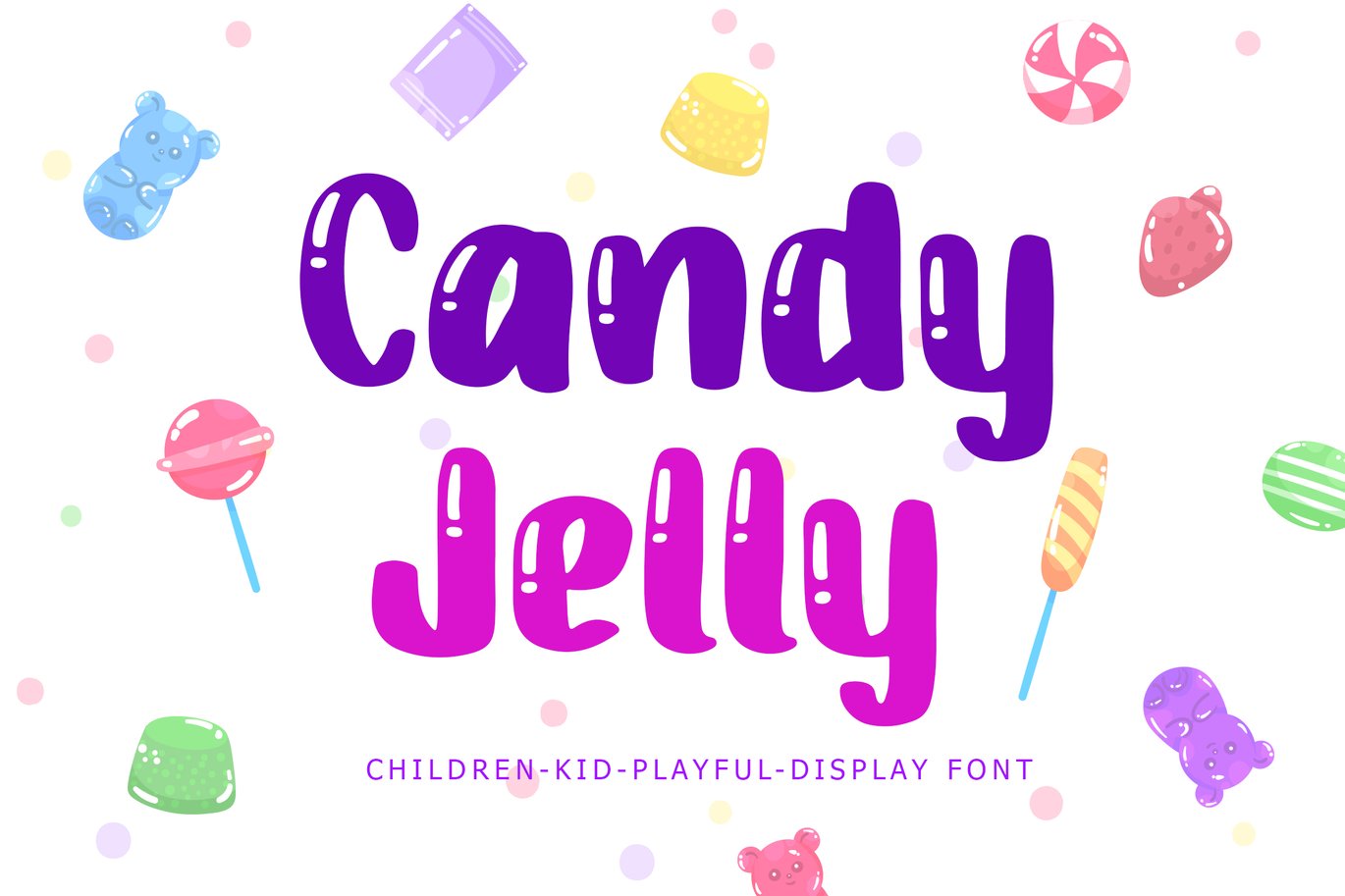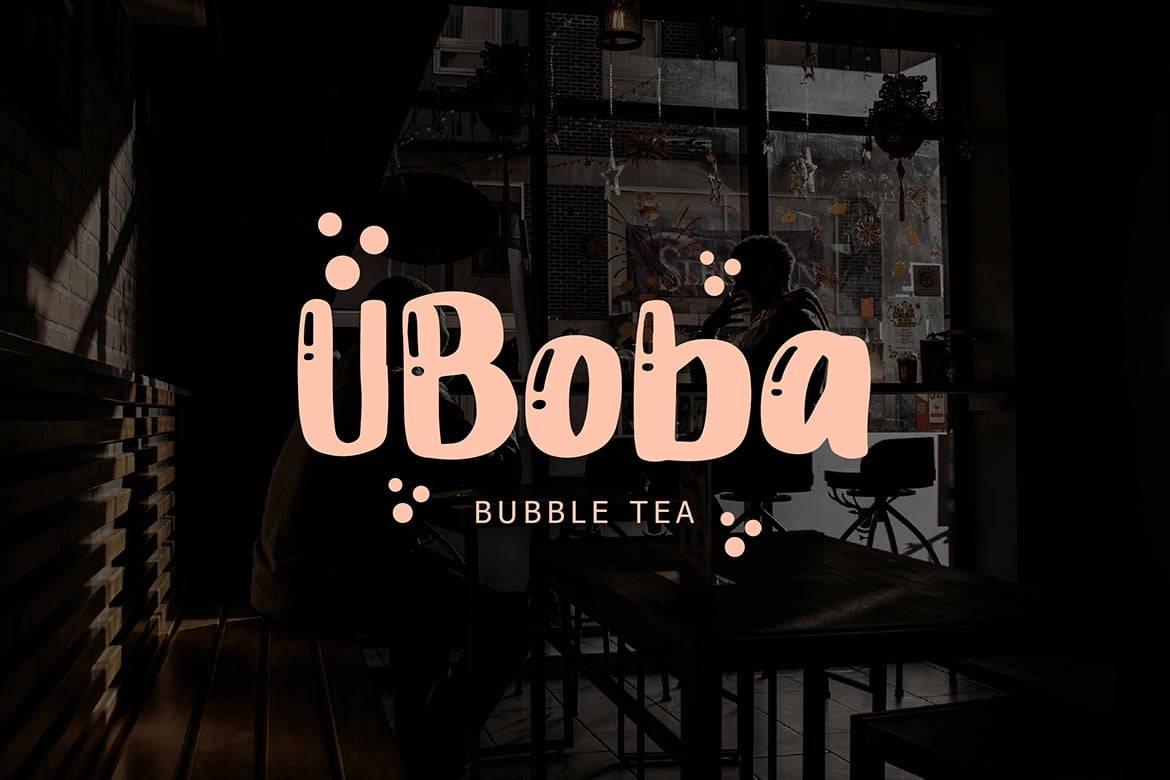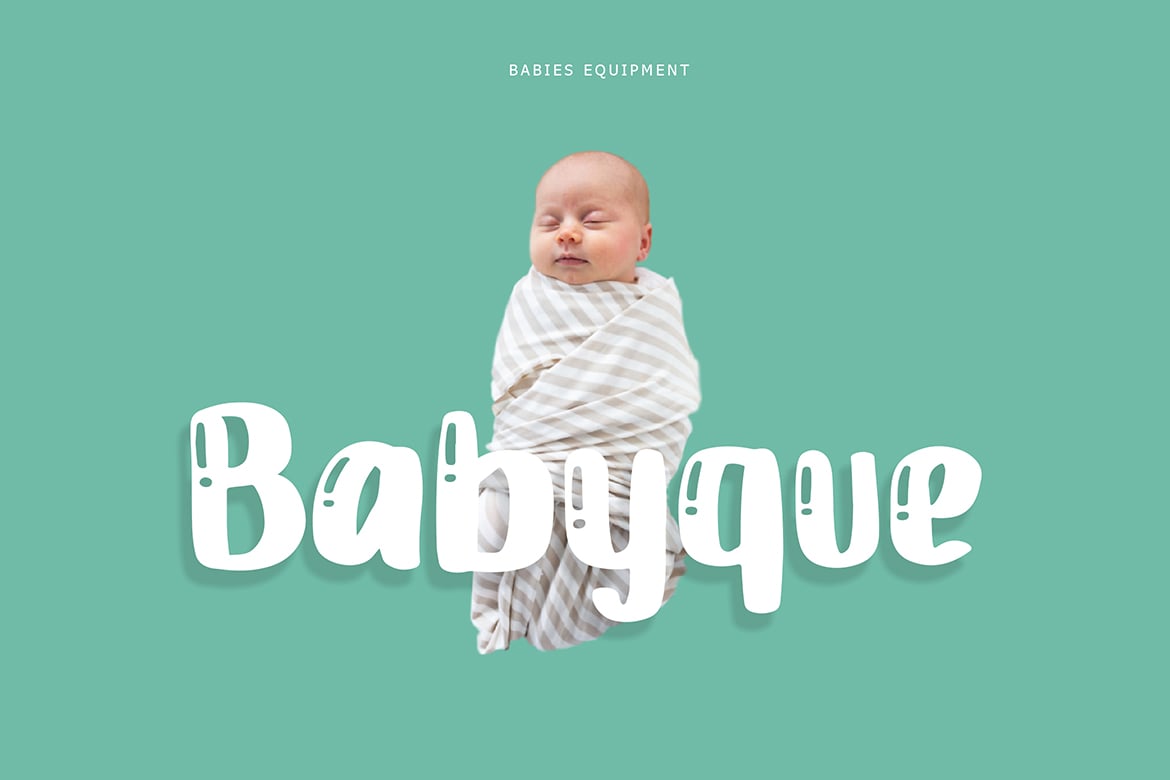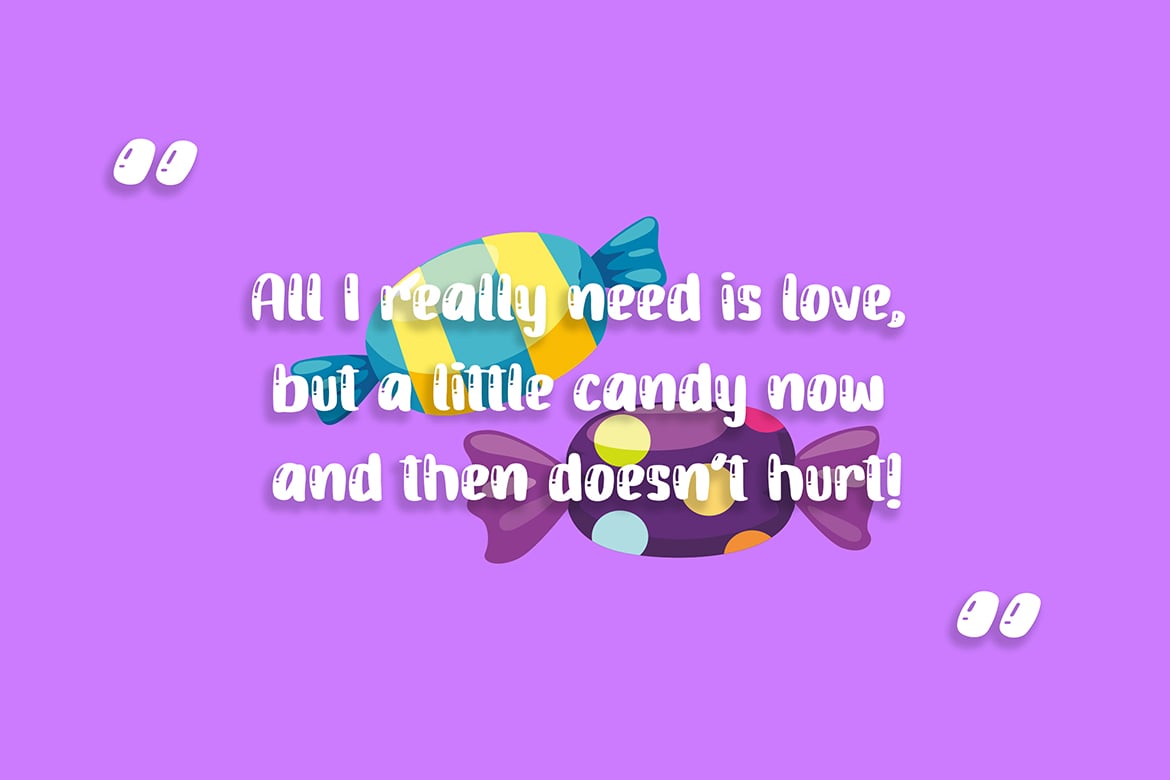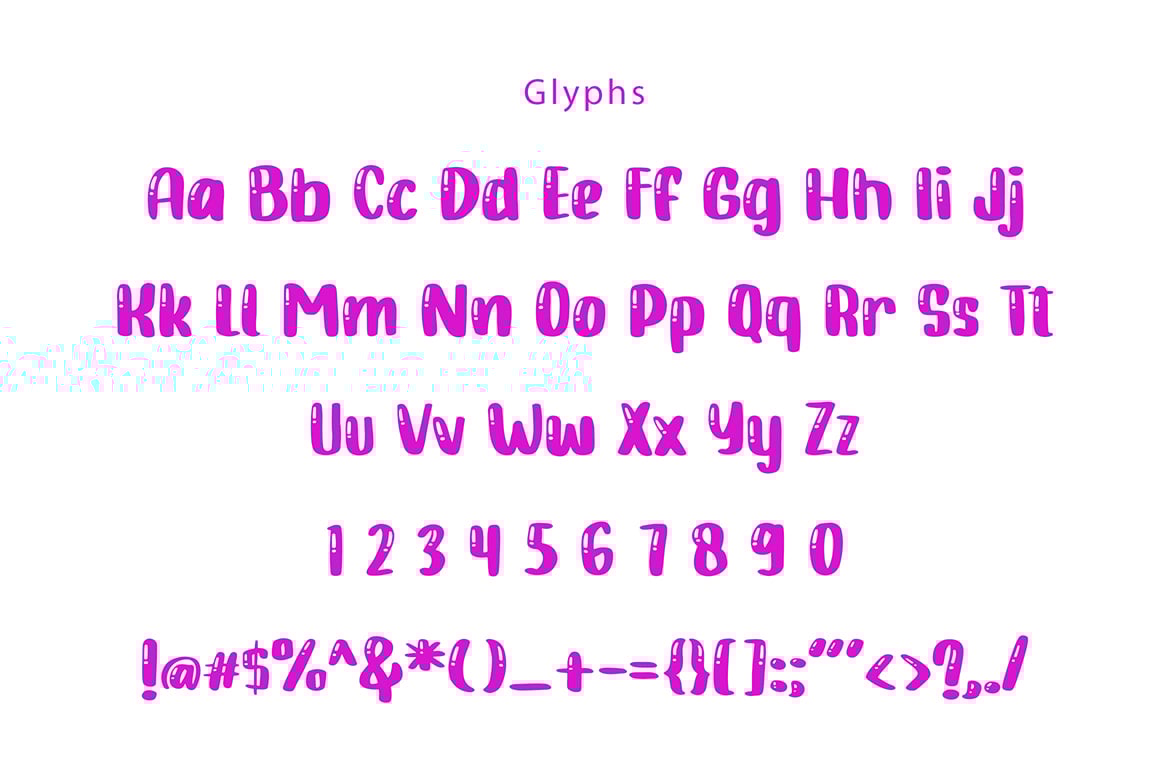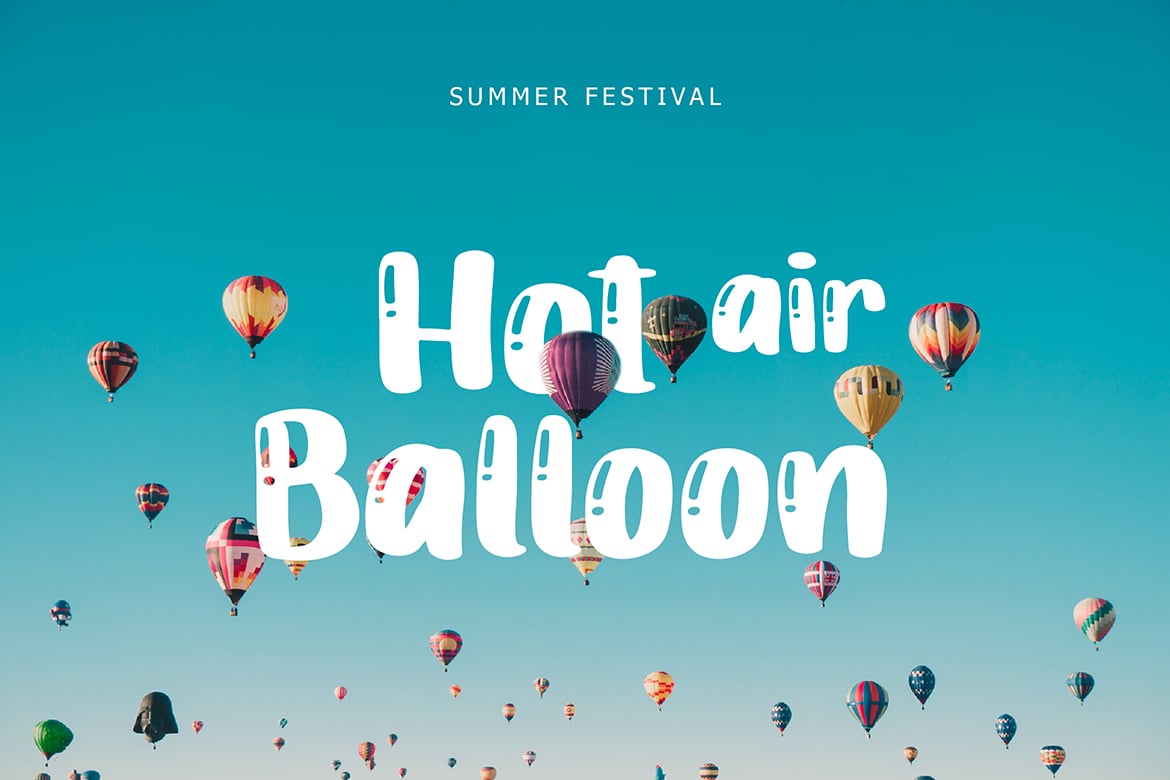
Candy Jelly Playful Display Font
Candy Jelly is an exciting and extraordinary display font that will make any kid-themed design stand out!
Candy Jelly is perfect for branding projects, logo, tshirt designs, book cover design, social media posts, advertisements, product packaging, product designs, label, watermark, invitation, stationery and any projects.